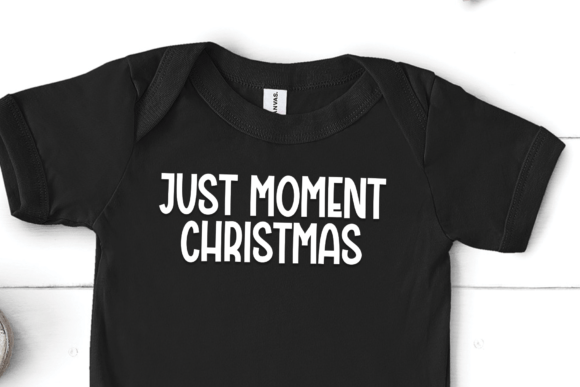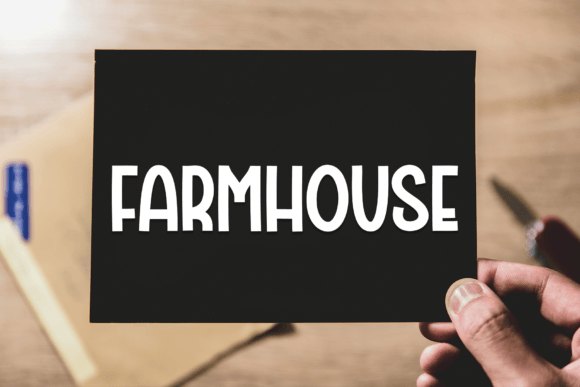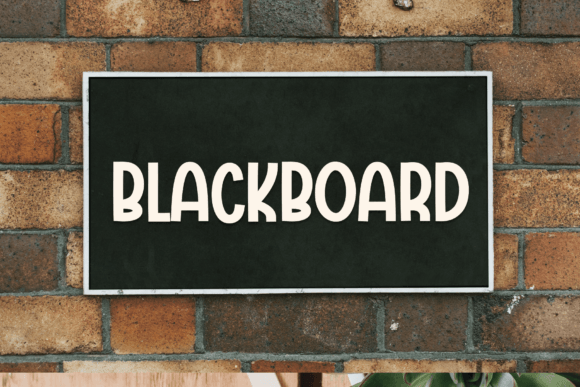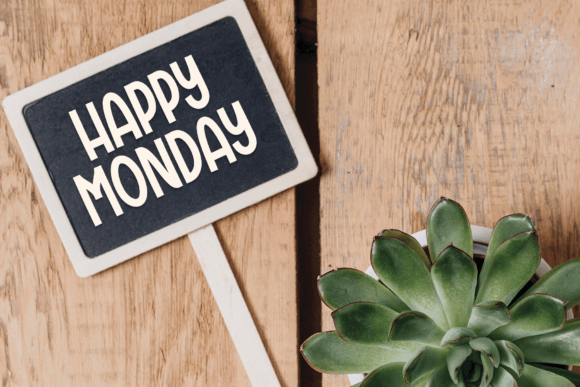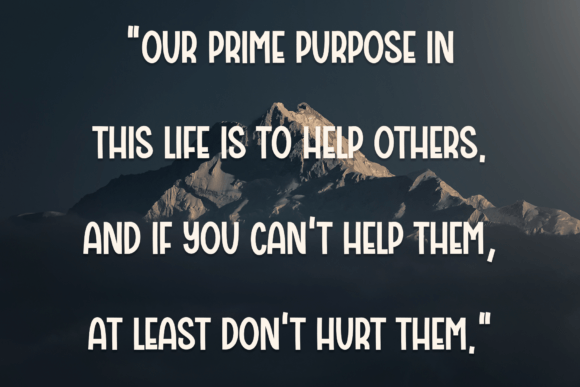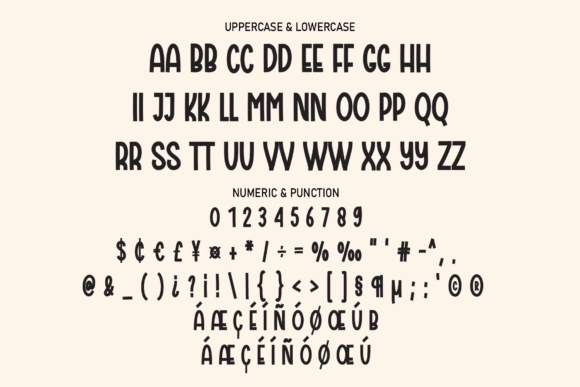
Introducing Happy Universary Font: Elevate Your Designs with Modern Elegance
In the world of typography, a font can make or break a design. For designers and crafters seeking a modern and clean aesthetic, Happy Universary Font is the perfect solution. This sans-serif font boasts a fresh and contemporary style, ideal for a wide range of applications, from wall displays and wedding invitations to social media posts and product packaging.
What Makes Happy Universary Font Stand Out?
Happy Universary Font’s latest style letters are crafted to provide impeccable typography, making it an excellent choice for projects that demand high-quality text. Its clean and minimalist design ensures that your message is conveyed with clarity and sophistication. Whether you’re working on a logo, advertisement, or product design, this font is sure to elevate your work.
Perfect for Various Applications
The versatility of Happy Universary Font is one of its most significant advantages. Here are some of the many applications where this font shines:
- Wall Displays: Create stunning wall art, quotes, or posters with Happy Universary Font, adding a touch of modern elegance to any room.
- Wedding Invitations: Make your wedding invitations or stationery truly special with this beautiful font, setting the tone for an unforgettable celebration.
- Social Media Posts: Enhance your online presence with Happy Universary Font, making your social media posts stand out and engaging your audience.
- Logos: Craft a professional and modern logo for your brand, using this font to convey a sense of sophistication and style.
- Advertisements: Create eye-catching ads with Happy Universary Font, grabbing the attention of your target audience and leaving a lasting impression.
- Product Packaging: Elevate your product packaging with a modern and clean design, making your products more appealing to customers.
- Product Designs: Incorporate Happy Universary Font into your product designs, such as labels, tags, or packaging inserts, to add a touch of elegance.
- Photography: Use this font to create beautiful watermarks or overlays for your photos, adding a professional touch to your work.
- Invitations: Design stunning invitations for any occasion, from birthdays to graduations, with Happy Universary Font.
- Stationery: Create modern and stylish stationery, including notebooks, journals, or planners, with this beautiful font.
Why Choose Happy Universary Font?
With so many fonts available, why choose Happy Universary Font? Here are a few reasons:
- Modern and Clean Design: Happy Universary Font boasts a fresh and contemporary style, perfect for designers and crafters seeking a modern aesthetic.
- Impeccable Typography: This font is designed to provide high-quality text, ensuring that your message is conveyed with clarity and sophistication.
- Versatility: Happy Universary Font is suitable for a wide range of applications, making it an excellent addition to your font collection.
- Easy to Read: The clean and minimalist design of this font makes it easy to read, even at small sizes.
Happy Universary Font is an excellent choice for designers and crafters seeking a modern and clean sans-serif font. Its versatility, impeccable typography, and modern design make it perfect for a wide range of applications. Whether you’re working on a logo, advertisement, product design, or social media post, this font is sure to elevate your work. With Happy Universary Font, you can create stunning designs that leave a lasting impression.